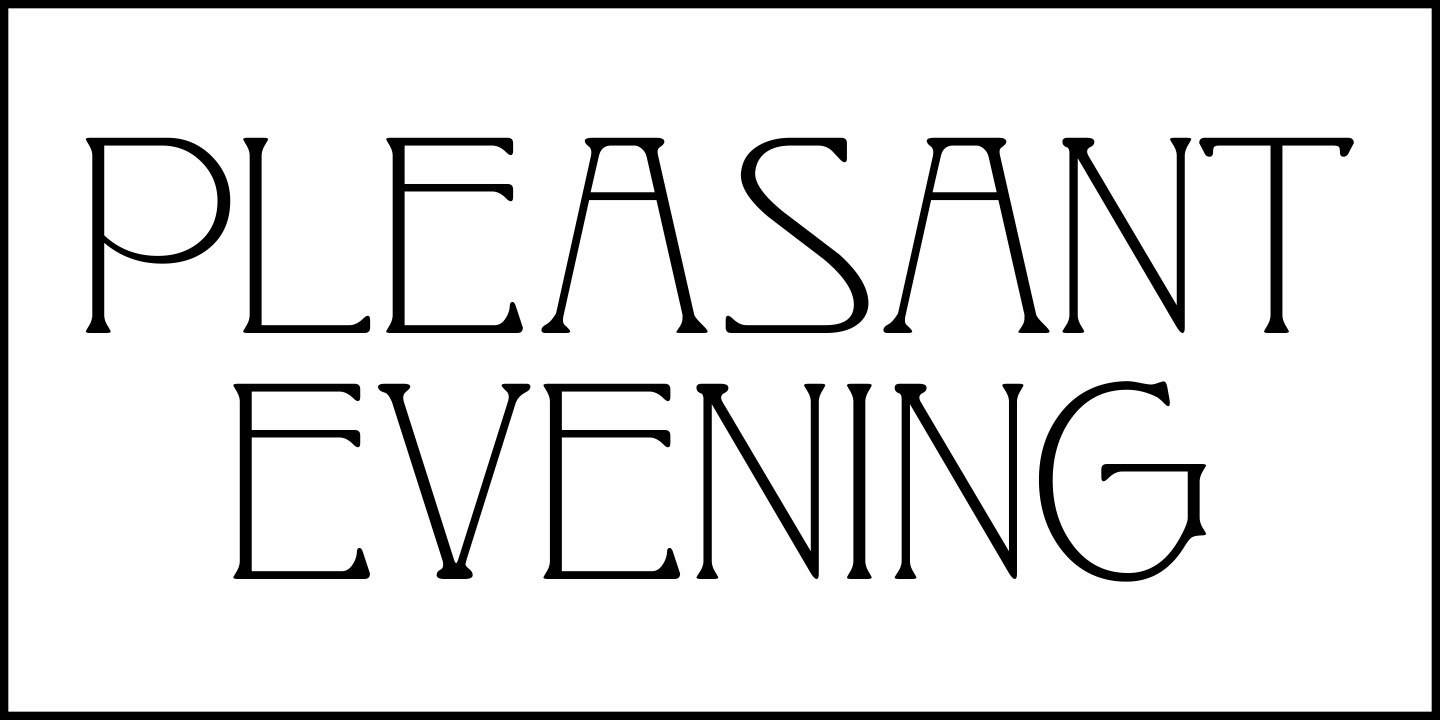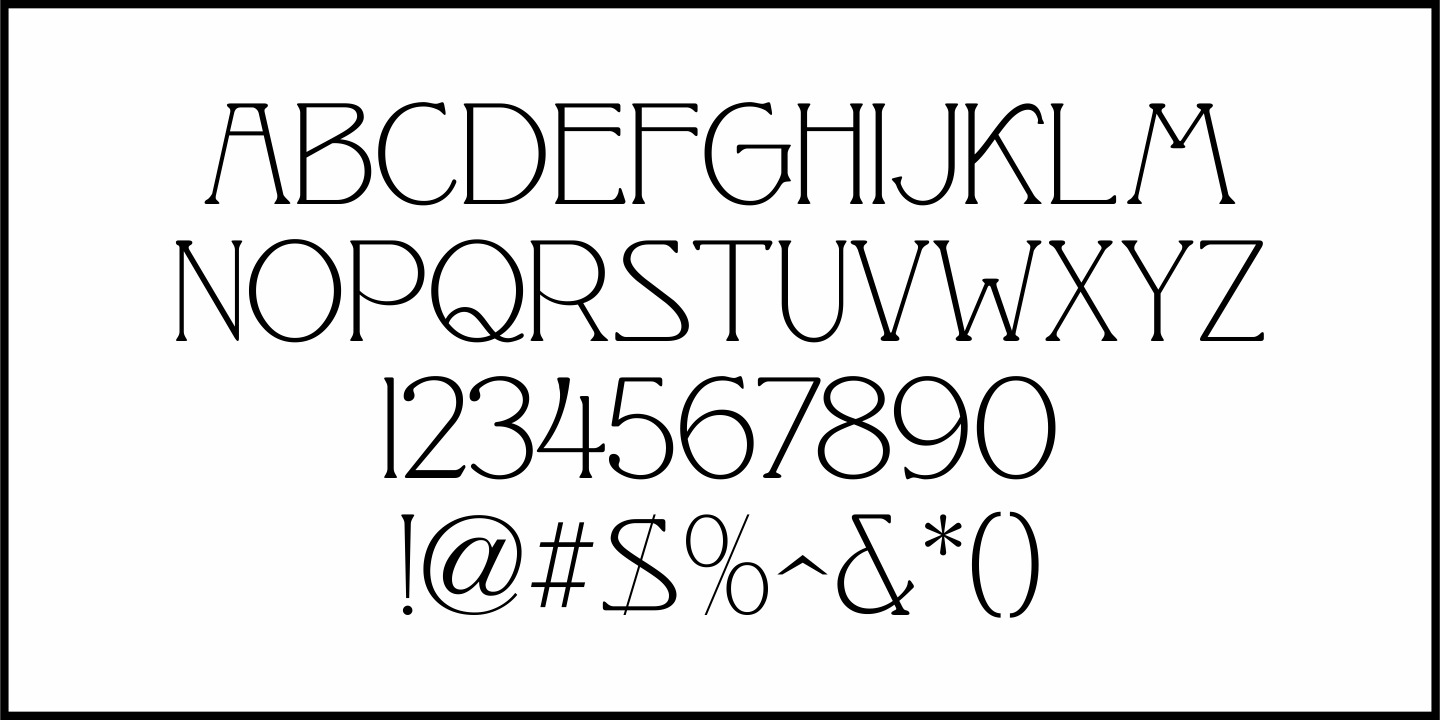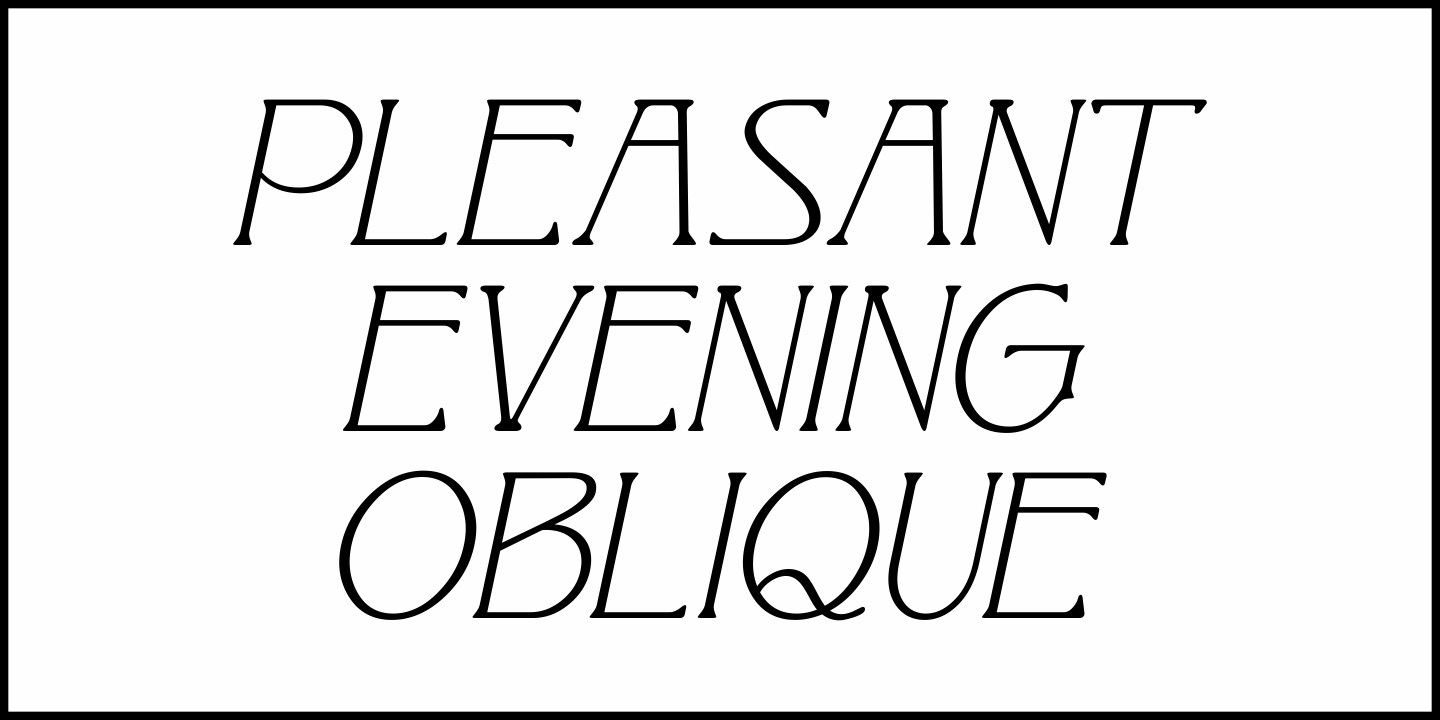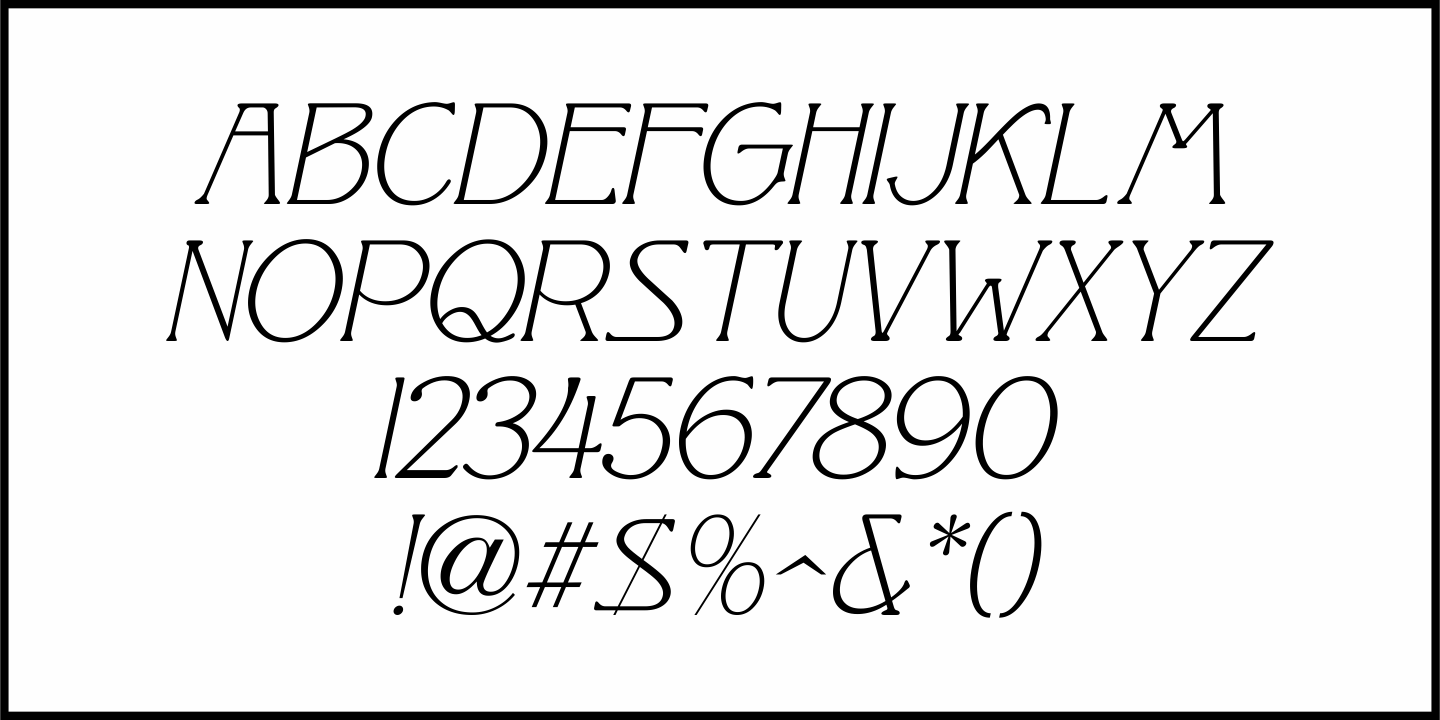
Pleasant Evening
Pleasant Evening JNL was modeled after an Art Nouveau serif typeface named ‘Racine’ [found in the 1881 Barnhart Bros. & Spindler type specimen book] and is available in both regular and oblique versions.